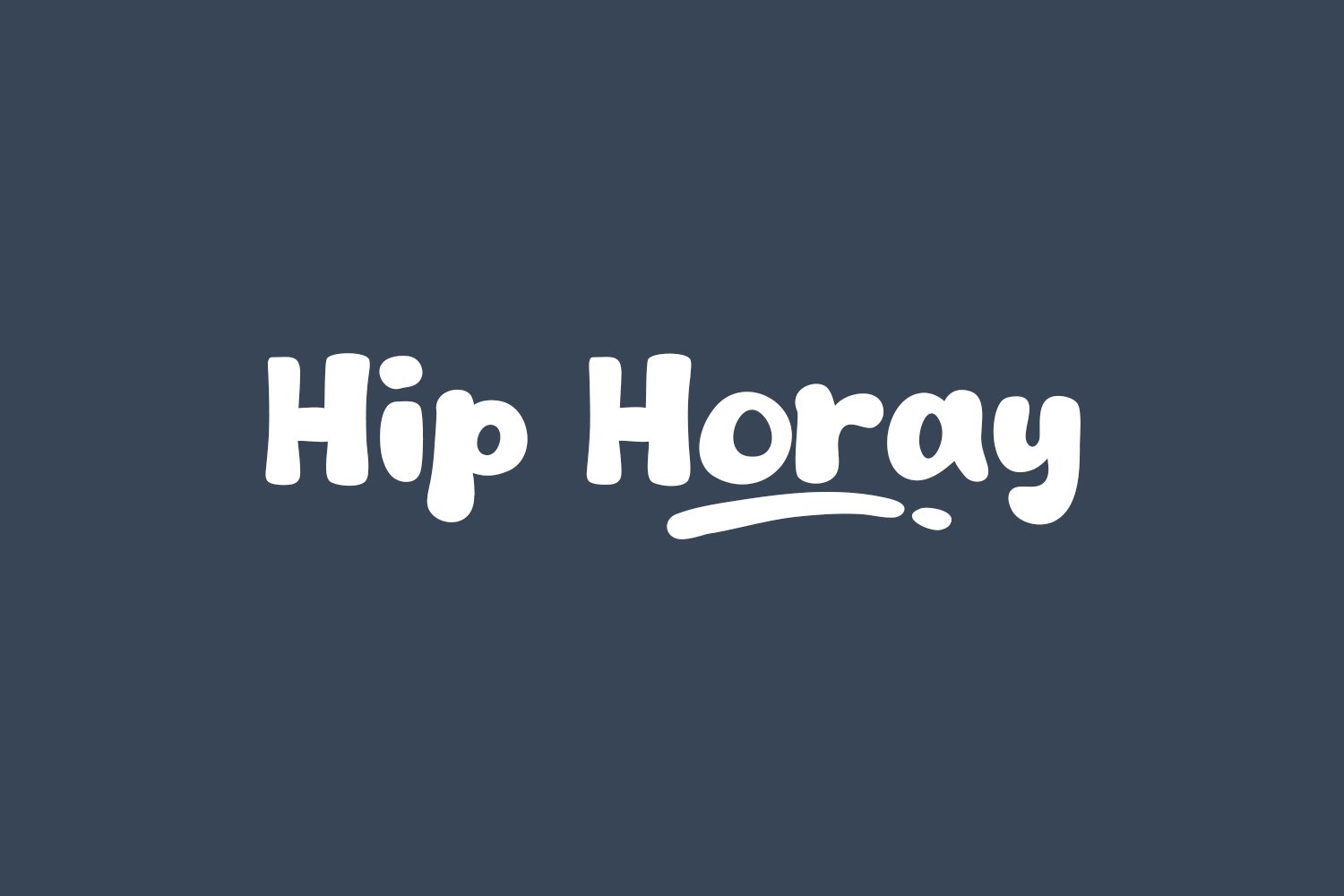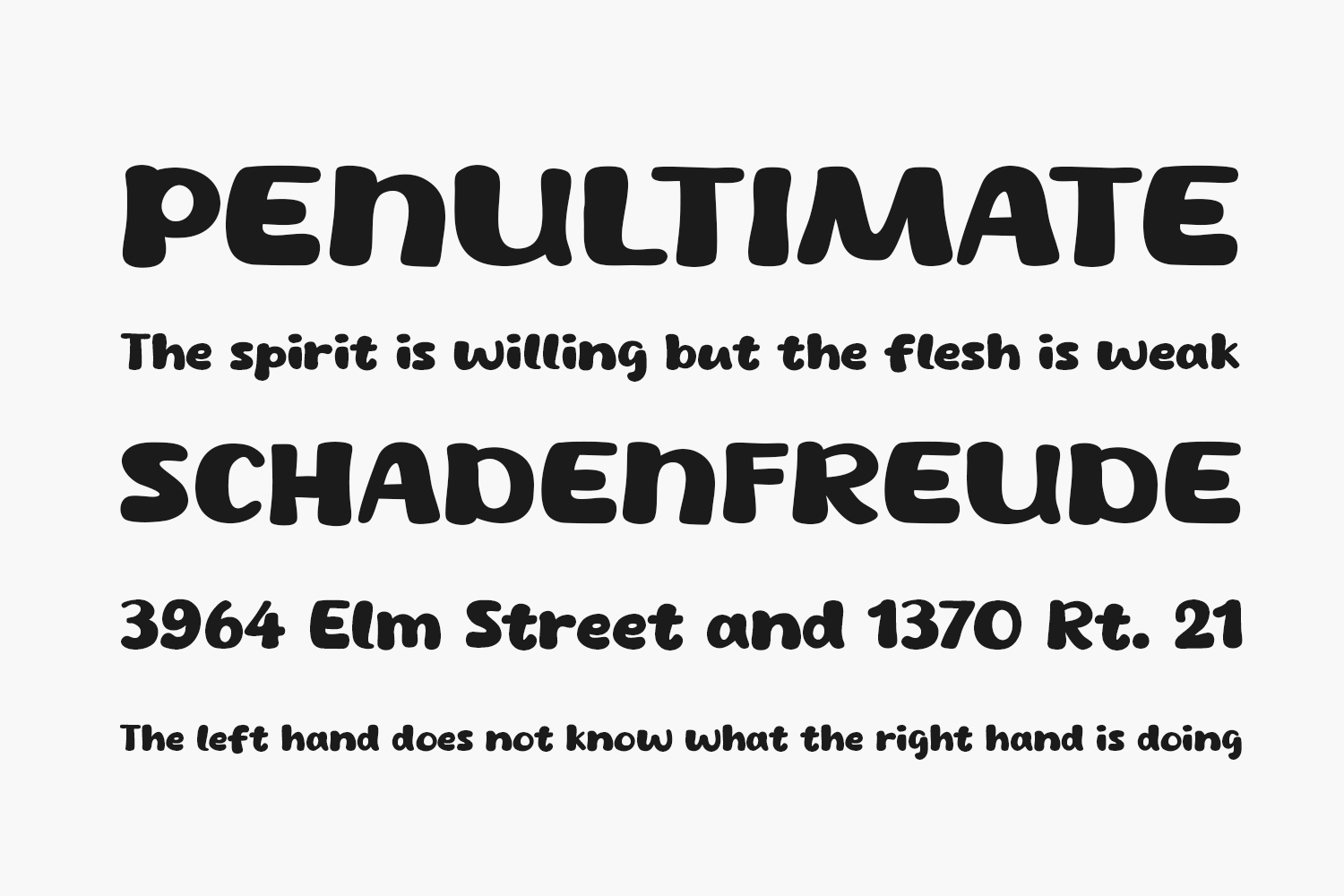
Hip Horay Free Font is a contemporary and charming bold display font ideal for a variety of design projects including posters, logos, magazines, book covers, banners, and more! Elevate your designs with this incredible font that effortlessly complements a wide range of creative ventures. Incorporate Hip Horay into your artistic concepts and watch as it enhances and distinguishes them, adding that extra flair to your visual creation. Hip Horay Free Font is free for personal or commercial use.